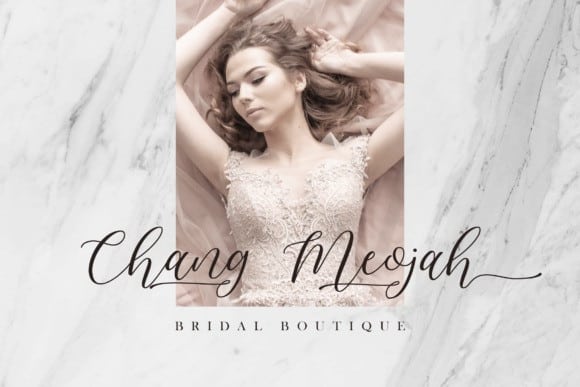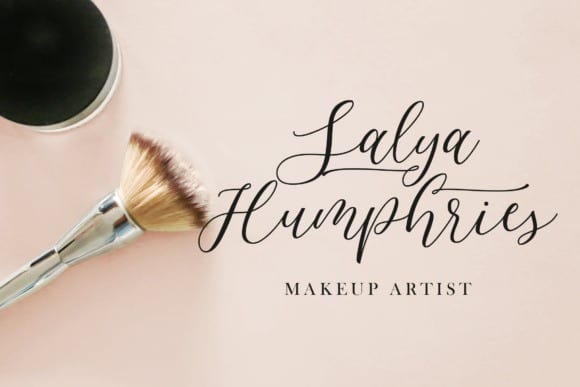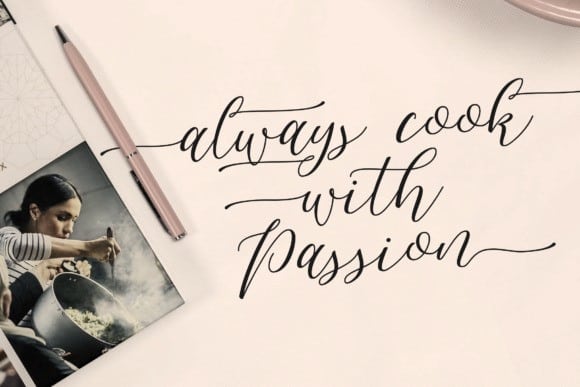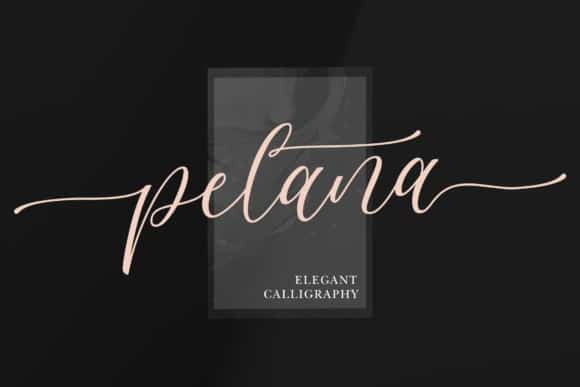
Pelana Calligraphy Font maintains its classy calligraphic influences while feeling contemporary and fresh. Made from font designer named Letteratom. It looks stunning on wedding invitations, thank you cards, quotes, greeting cards, logos, business cards and every other design which needs a handwritten touch. This font is PUA encoded which means you can access all of the glyphs and swashes with ease! It features a varying baseline, smooth lines, gorgeous glyphs and stunning alternates.